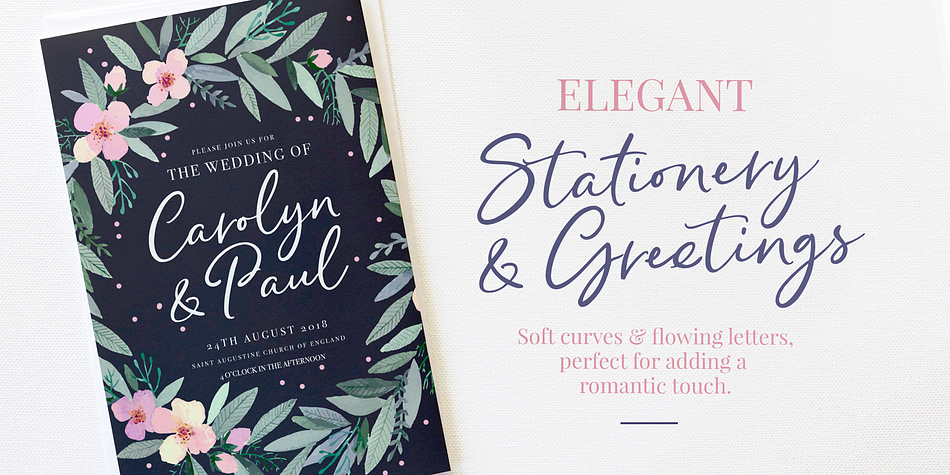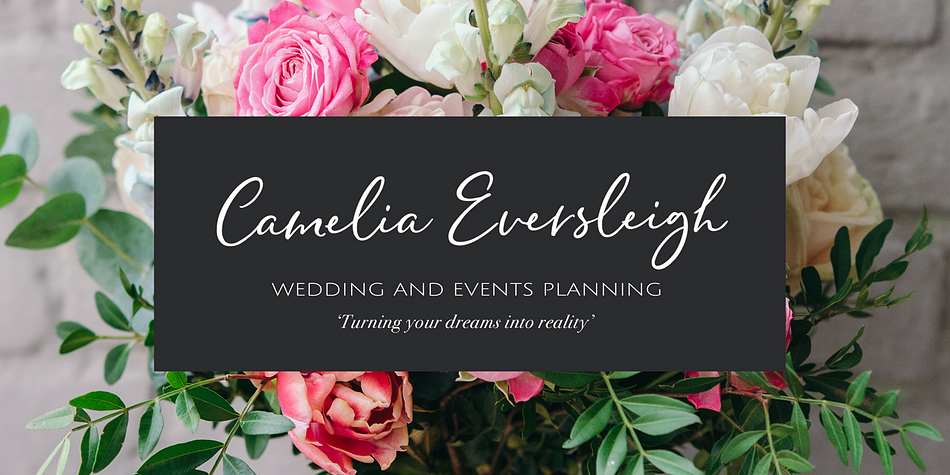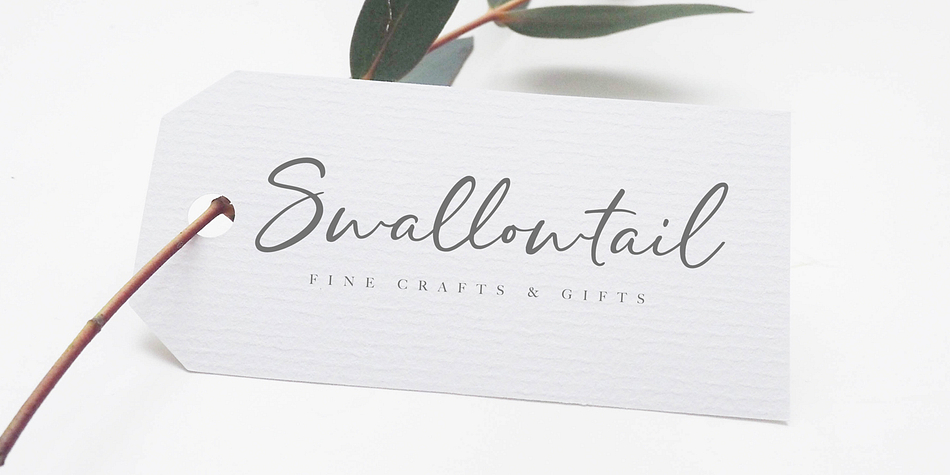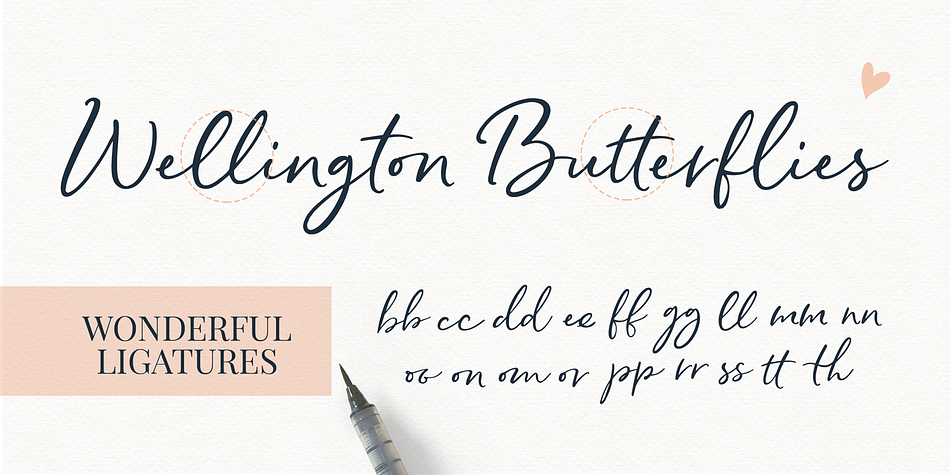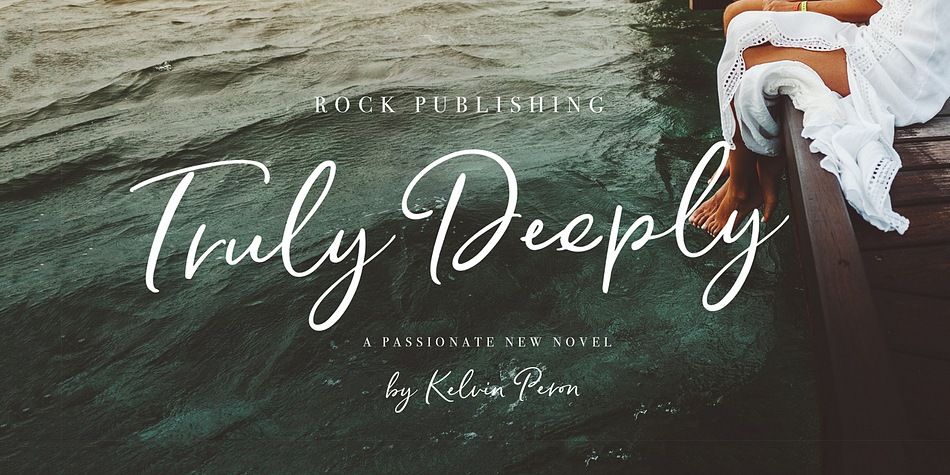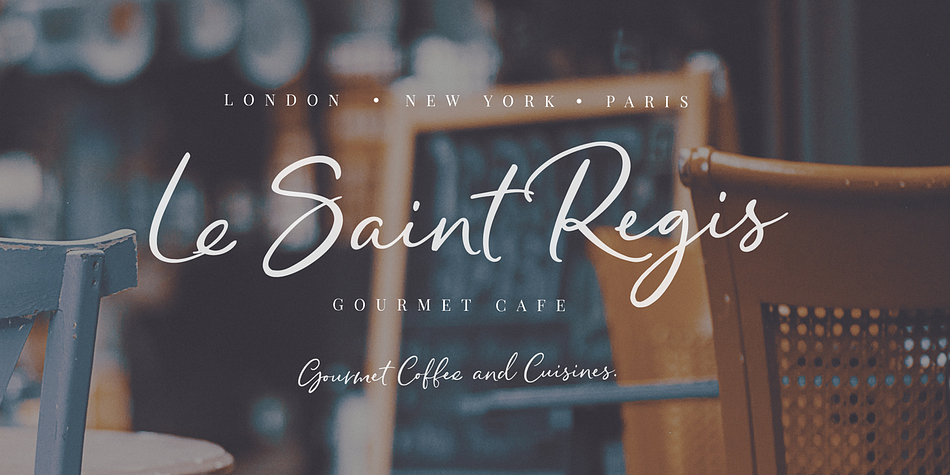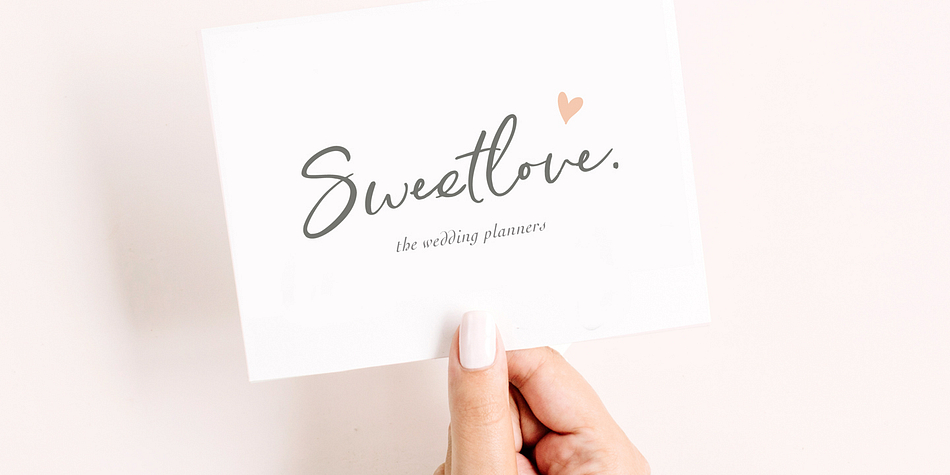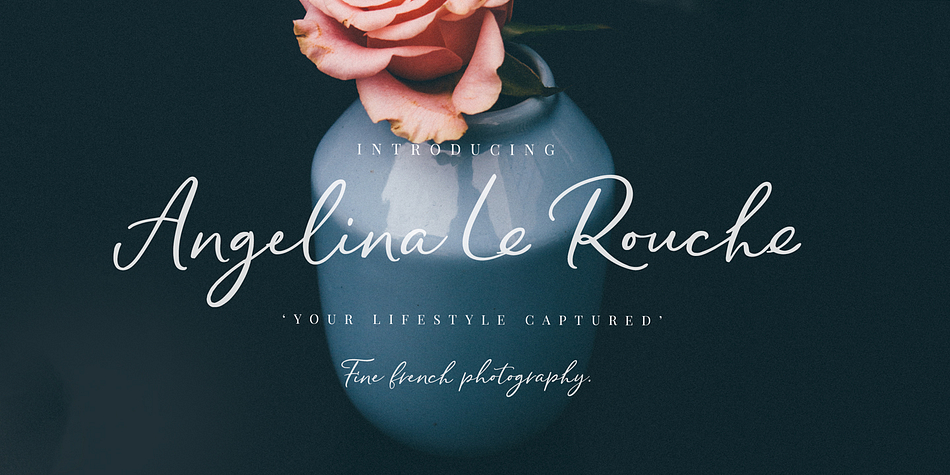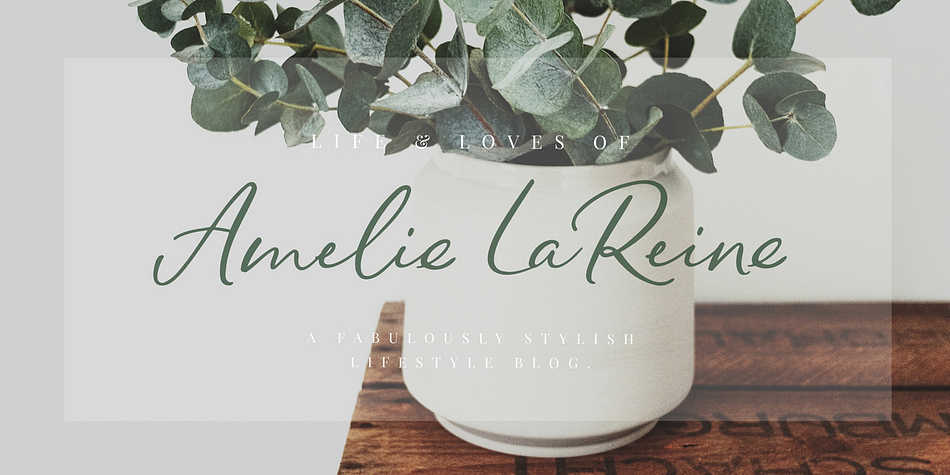
Designed by Nicky Laatz, Pringle and Tweed is a script font family. This typeface has two styles and was published by Nicky Laatz.
Stylish and unique, Pringle & Tweed is a new handwritten font with a graceful nuance.It’s gentle curves and natural lettering make it distinctive and elegant.
To make your lettering look truly unique, Pringle and Tweed comes with a comprehensive set of double letter ligatures , and a set of stylistic alternate lowercase letters in it’s opentype features.
Pringle and Tweed includes a slanted version for an extra elegant feel.